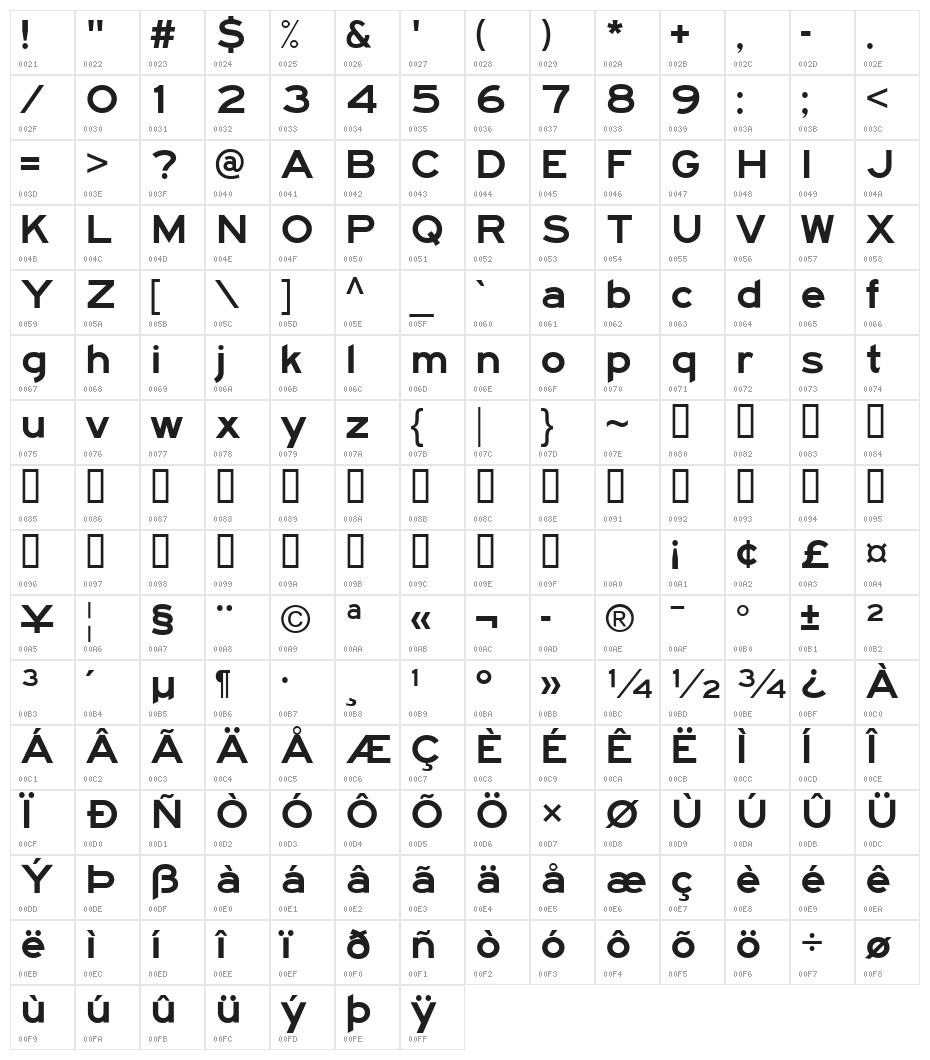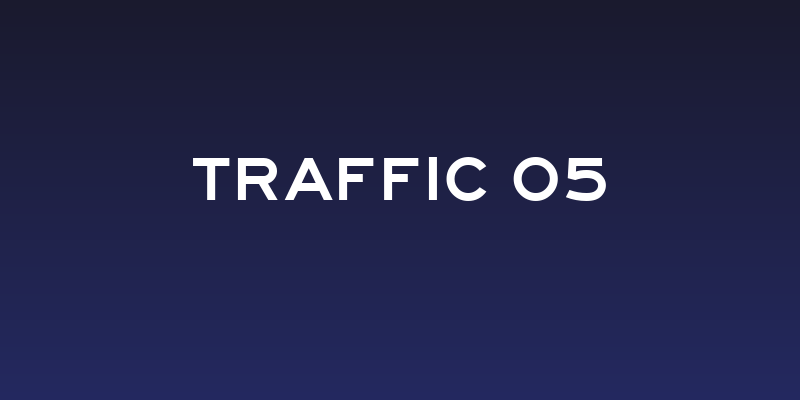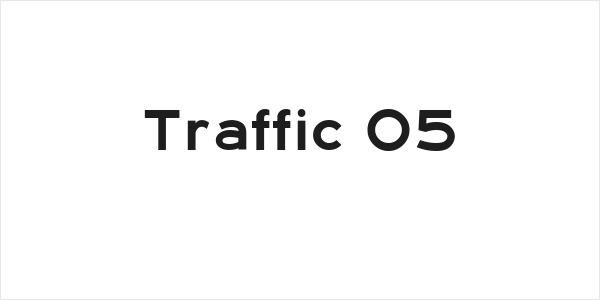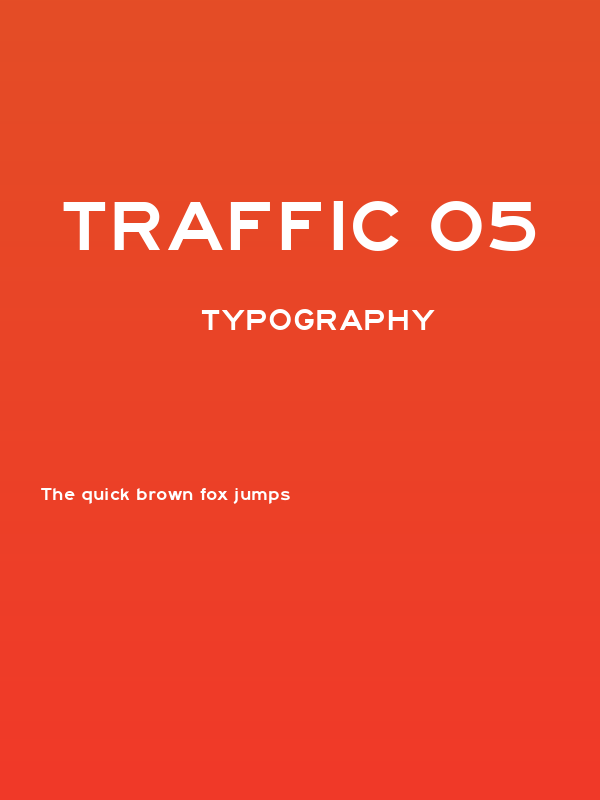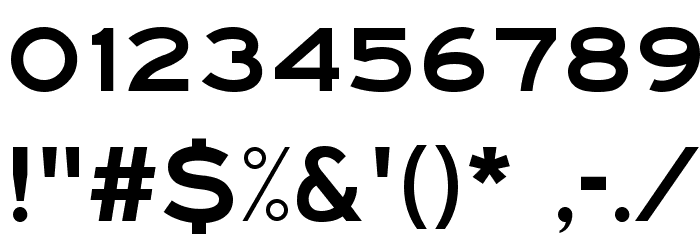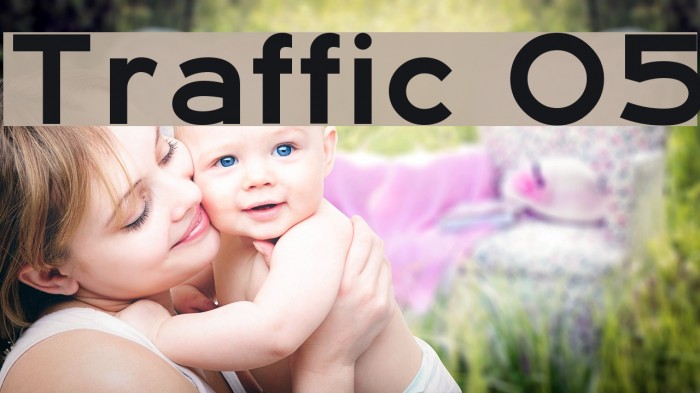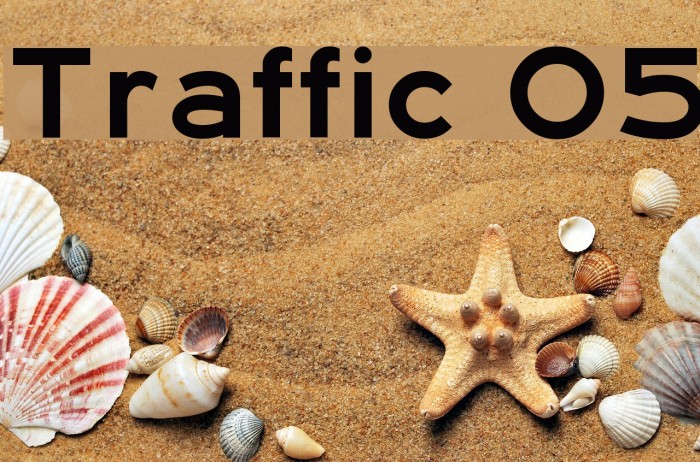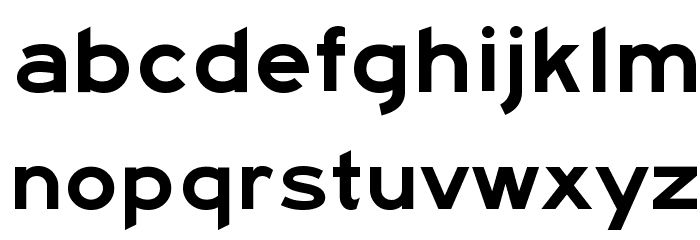
Traffic 05 Font
Traffic 05 Description
This font features a clean and modern sans-serif design with a bold and confident appearance. The characters are well-proportioned, offering a strong visual impact. The uppercase letters are slightly taller than the lowercase, providing a clear distinction between the two. The numerals are consistent with the overall style, maintaining the same boldness and clarity. Special characters are designed to match the font's modern aesthetic, ensuring uniformity across all glyphs. The font's simplicity and boldness make it highly legible, even at smaller sizes, while its modern style adds a contemporary touch to any design.
| Proposed Projects | Ideal for branding, advertising, headlines, and digital interfaces where a modern and bold statement is needed. |